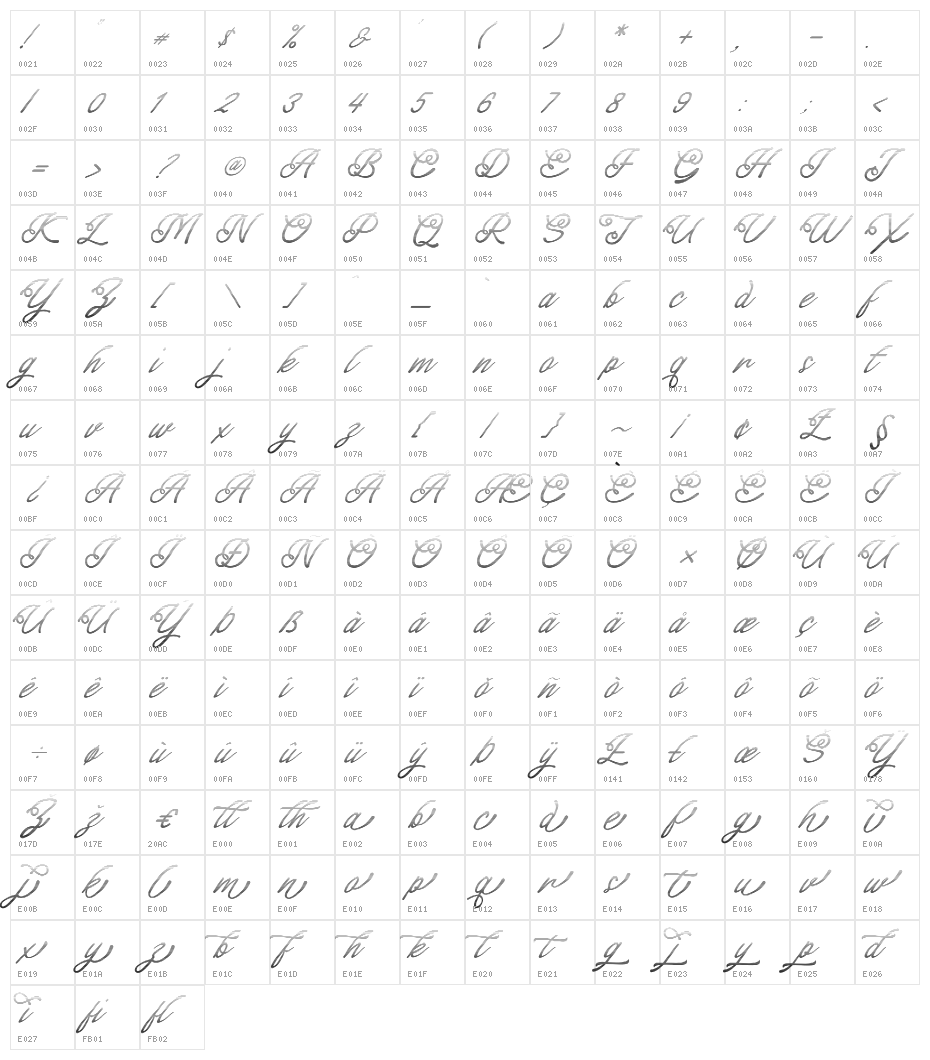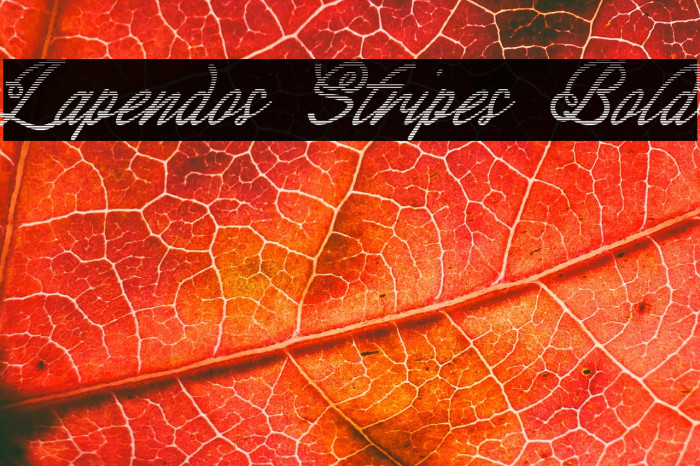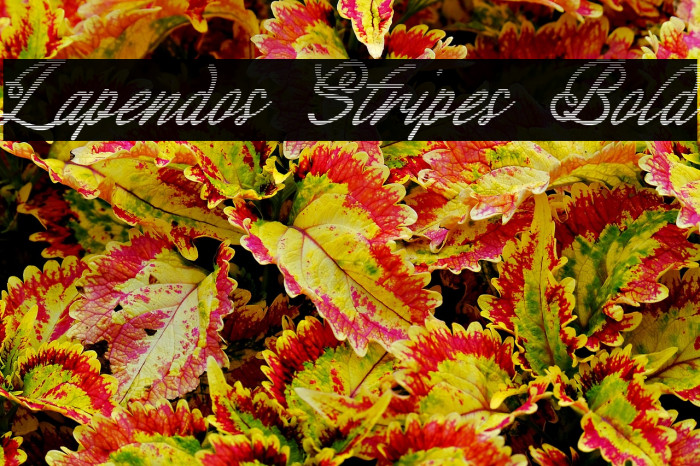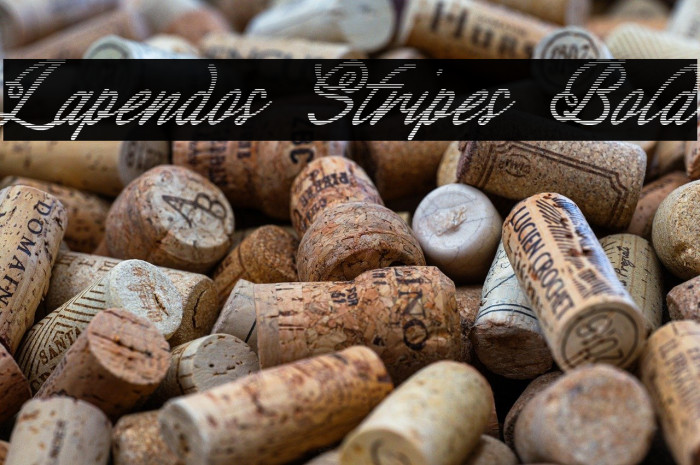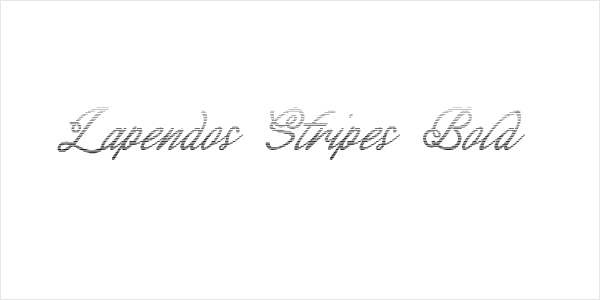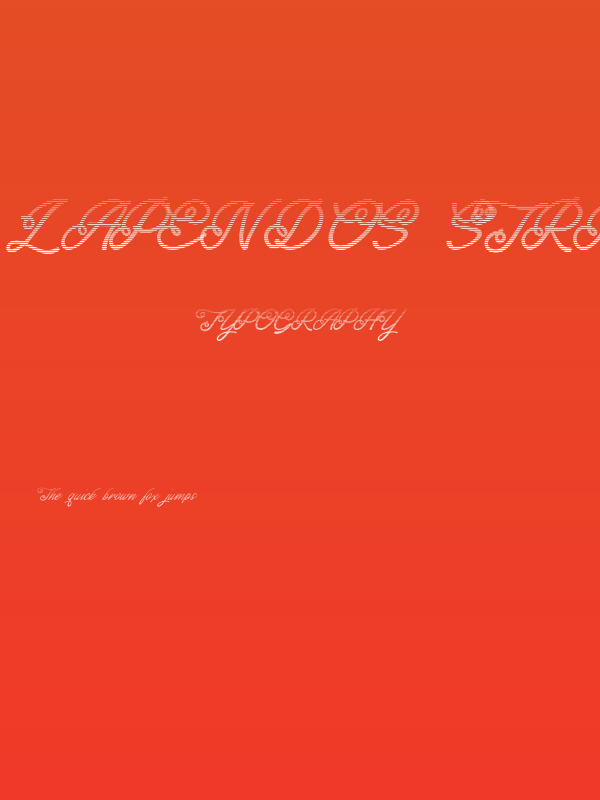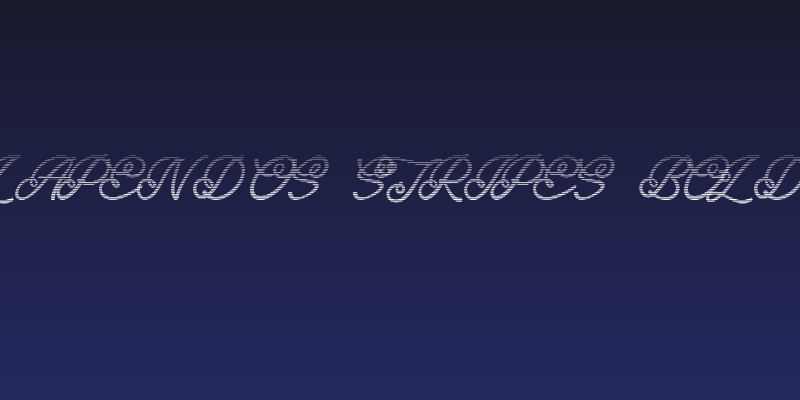
Lapendos Stripes Bold Font
Lapendos Stripes Bold Description
This font features a unique striped pattern across each character, giving it a distinct and eye-catching appearance. The letters are elegantly crafted with a script style, showcasing smooth, flowing curves and a sense of movement. The uppercase and lowercase letters maintain a consistent style, with the stripes adding a dynamic texture that enhances the overall aesthetic. The numerals and special characters are designed to match the flowing script, ensuring a cohesive look across all elements. This font's boldness and decorative style make it suitable for projects that require a striking visual impact.